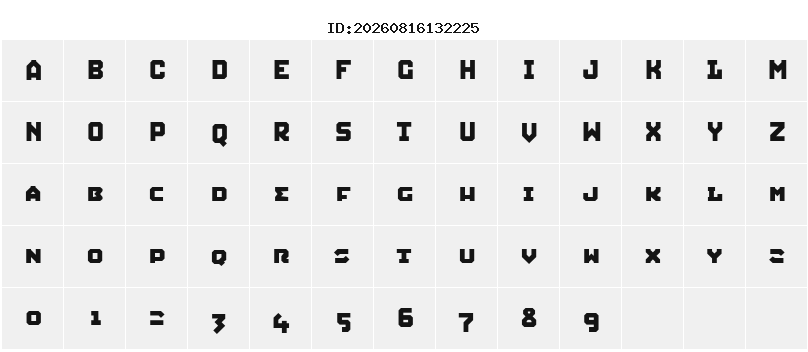
• Font Name: Squid
• Font Style: Caps
• Font ID: Macromedia Fontographer 4.1.2 Squid Caps
• Full Font Name: Squid Caps
• Version: Macromedia Fontographer 4.1.2 27.03.2002
• PostScript Name: SquidCaps
About Squid.ttf
Squid.ttf is a modern, elegant sans-serif font designed for ultimate readability and visual harmony. Perfect for branding, headlines, web design, and print materials.